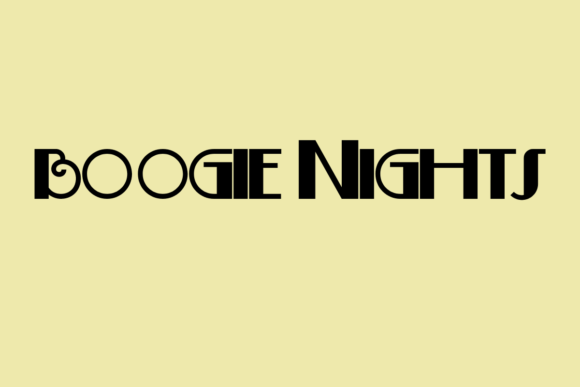
Boogie Nights, Retro Display Font for Posters & Branding
Boogie Nights is a fun display font with a vintage / retro‑disco aesthetic. It includes two distinct styles — a clean regular version and a bold “shadow” version — giving you flexibility to choose between a simpler look or a more dramatic, layered effect. The font features stylized touches like a lightning‑bolt uppercase S for added personality and makes designs stand out whether printed or used digitally.
- Two complementary styles — regular and shadow — let you pick between clean or more dramatic looks
- The retro / disco‑inspired vibe makes it ideal for eye‑catching display designs and merchandise
Q: What styles does Boogie Nights include?
A: It includes two styles — Regular and Shadow — giving you clean or layered display text options. -